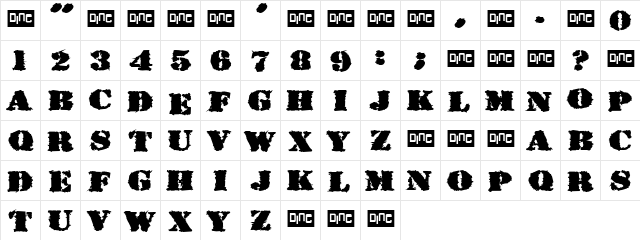
MelbourneWC Regular
Design Context for MelbourneWC Typeface
MelbourneWC is a composed and adaptable typeface that performs quietly and consistently across a wide range of design contexts.